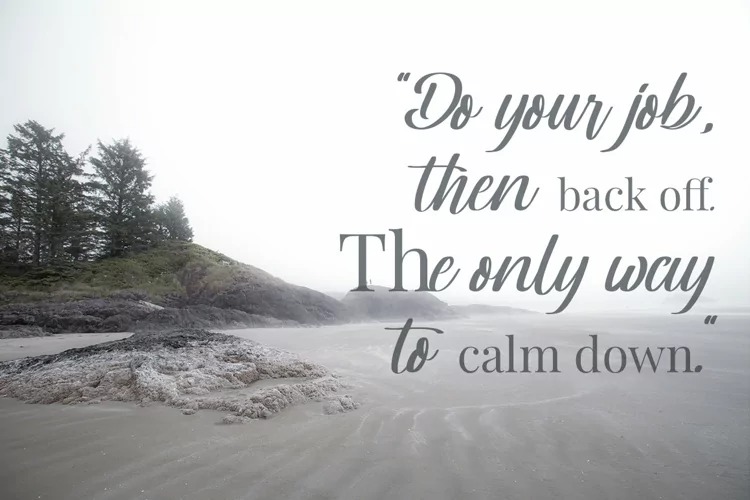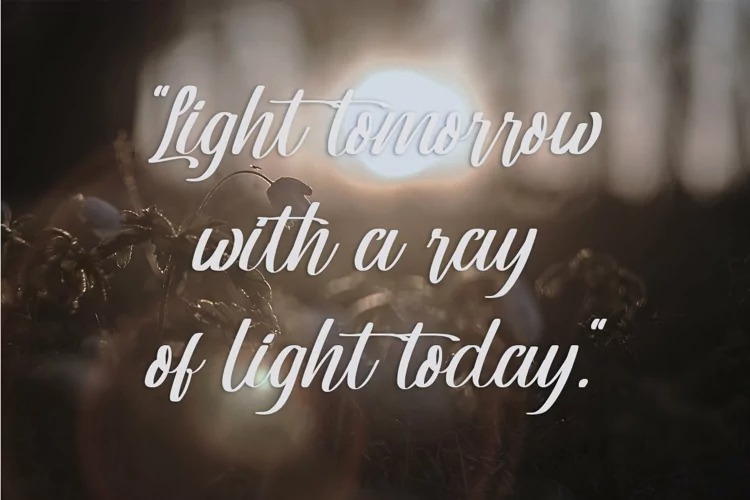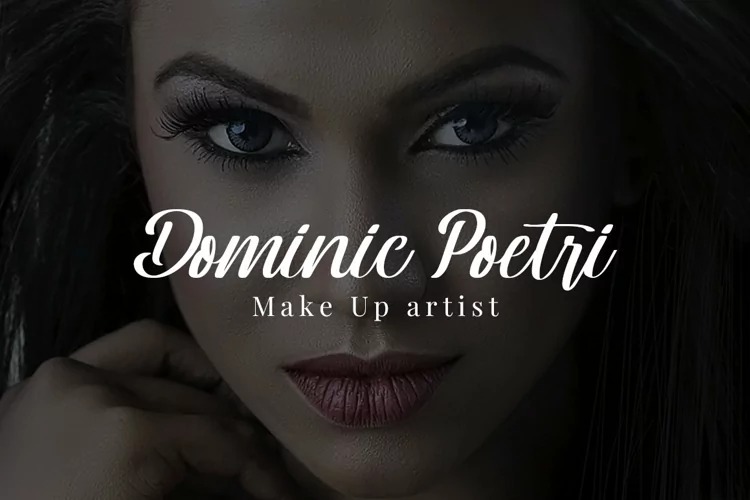
Damarwulan Script Font
This is a magical handwritten font carefully created with a touch of elegance. This is a beautiful combination of timeless elegance and authentic calligraphy. It is suitable for any projects such as: logos, branding projects, label, photography, watermark, special events, and all your other lovely projects that need a beautiful script taste.